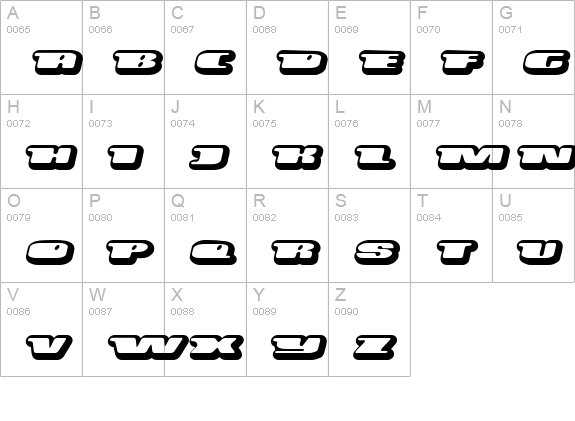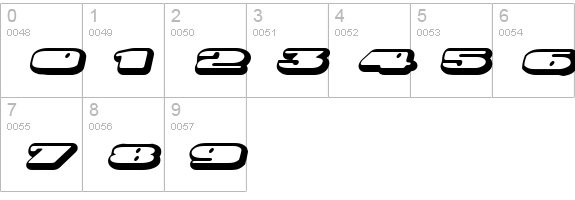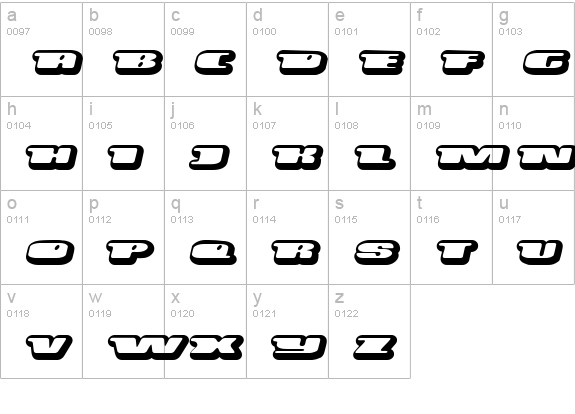
Cord Grob Font Details
Cord Grob is a modern and stylish font that exudes elegance and sophistication. With its sleek lines and unique design, Cord Grob is perfect for a wide range of design projects, from branding to advertising, and everything in between. This versatile font is sure to make a statement and elevate your designs to the next level. The best part? Cord Grob is available for free download at FontsMarket.com. So you can add this stunning font to your collection without breaking the bank. Don't miss out on the opportunity to enhance your projects with the sleek and contemporary style of Cord Grob. Download it today and let your creativity soar.